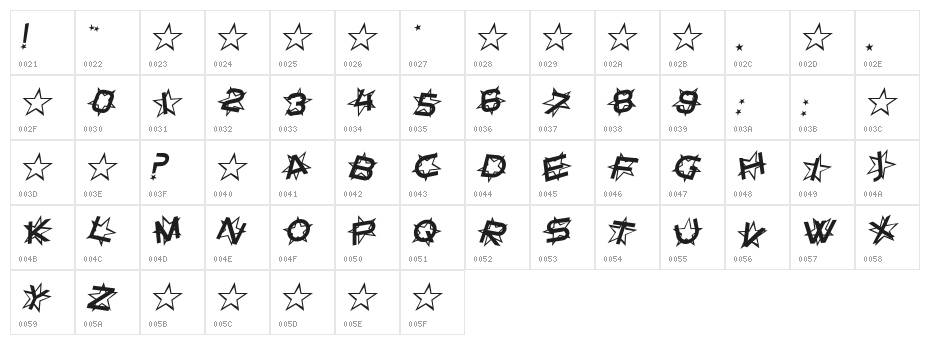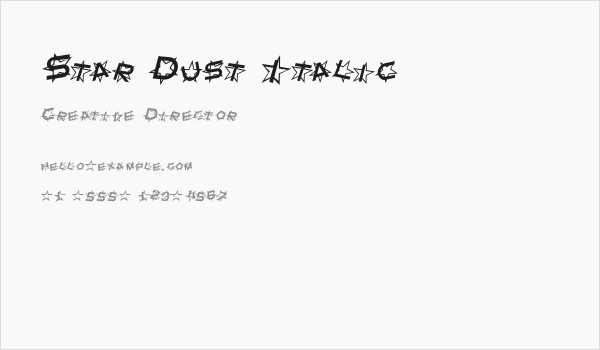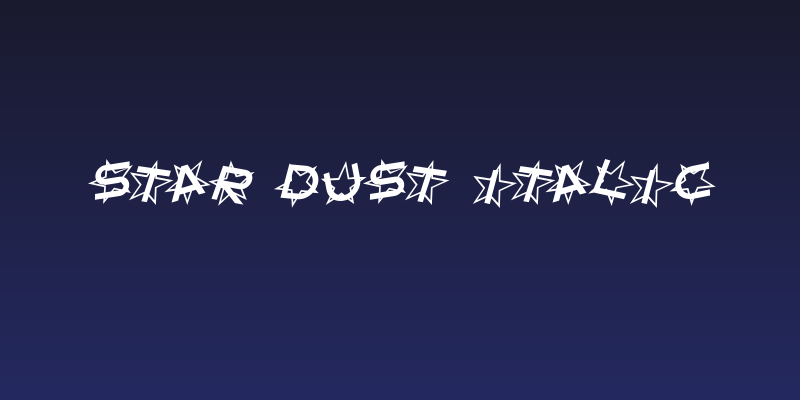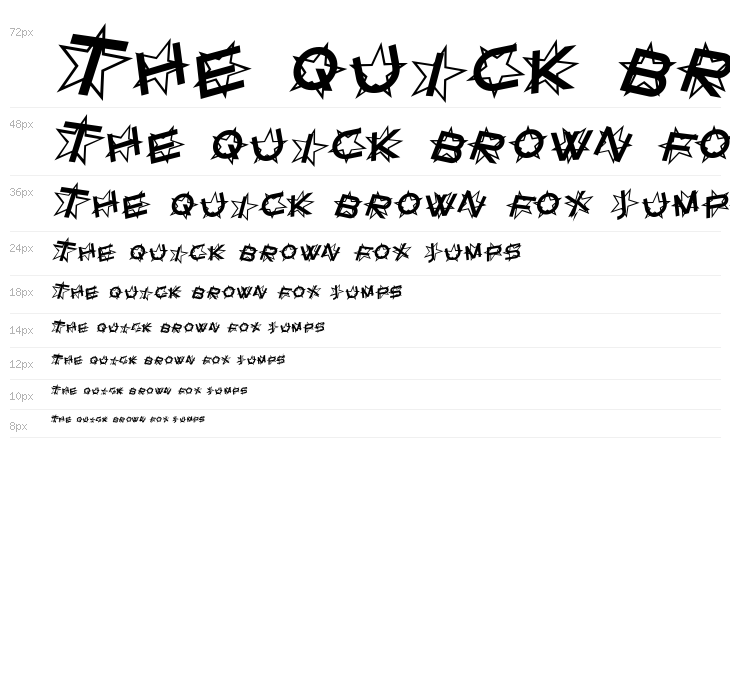
Star Dust Italic Font
Star Dust Italic Description
This font features a bold and dynamic design with a star-themed motif. Each character is uniquely crafted with sharp, angular edges and star-like embellishments, giving it a distinct and edgy appearance. The uppercase and lowercase letters maintain a consistent style, with stars integrated into the structure of each letter. The numbers and special characters follow the same thematic design, ensuring a cohesive look across all elements. The font's playful yet bold aesthetic makes it stand out, ideal for projects that require a strong visual impact.
Proposed ProjectsIdeal for posters, album covers, event flyers, and any design needing a bold, eye-catching typeface.